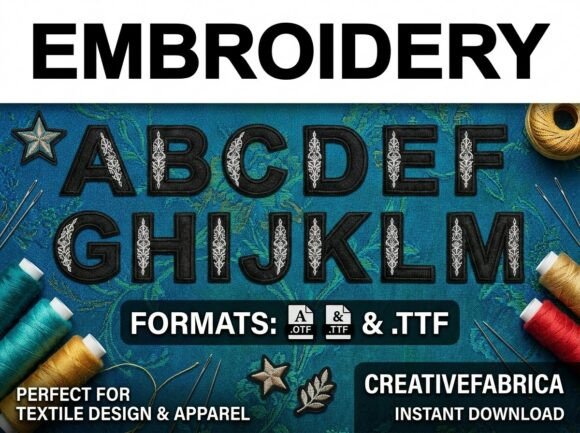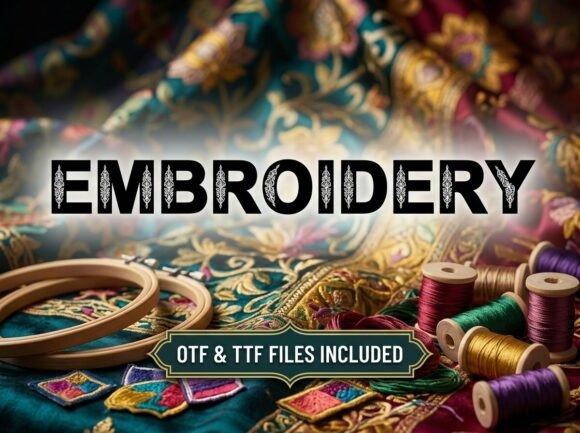
The Perfect Stitch: How Embroidery Font Can Elevate Your Designs
I’ll never forget the time I was working on a custom apparel project for a client’s boutique fashion brand. I had the design concept nailed, but I was struggling to find the right font to bring it all together. The client wanted something that would evoke a sense of heirloom quality, something that would make their customers feel like they were wearing a piece of history. That’s when I stumbled upon Embroidery Font, and it was love at first sight! 💕
This stunning textured display font has been a game-changer for my design workflow, and I’m excited to share its awesomeness with you. In this article, we’ll dive into the world of Embroidery Font, exploring its features, how to use it, and some similar fonts you might love.
Embroidery Font: A Designer’s Review
- ✨ Unmatched texture and tactile realism: Embroidery Font expertly mimics the dimensional appearance of iron-on fabric chenille patches, giving your designs an unmistakable heirloom quality.
- ✅ Bold and geometric: The heavy black block-slab letterforms are perfect for making a statement, while the hyper-realistic embroidered edge outline adds a touch of sophistication.
- 🌼 Intricate floral pattern inlay: The contrasting white damask-style floral pattern inlay adds a level of detail and visual interest to each character.
- 📸 Optimized for scannability: Embroidery Font is beautifully optimized to retain maximum scannability even when placed over detailed flat-lay backgrounds.
While Embroidery Font is an amazing design asset, there are a few things to keep in mind:
- 🤔 Legibility at small sizes: As with any font, Embroidery Font may lose legibility at very small sizes. Make sure to test it at different sizes to ensure it works for your design.
- ⚠️ Overuse: While Embroidery Font is stunning, it’s easy to overuse it. Make sure to balance it with other design elements to avoid overwhelming your composition.
The Story Behind Embroidery Font
Embroidery Font was designed with crafters, hobbyists, and textile designers in mind. The designer wanted to create a font that would evoke the sense of heirloom quality and tactile realism that’s often associated with embroidered patches and custom apparel. With its bold, geometric letterforms and intricate floral pattern inlay, Embroidery Font is the perfect design asset for anyone looking to add a touch of handmade charm to their designs.
| Font Name | Embroidery Font |
| Author | Raholco |
| What is Embroidery Font? | Embroidery Font is a textured display font that mimics the look of embroidered patches and custom apparel. |